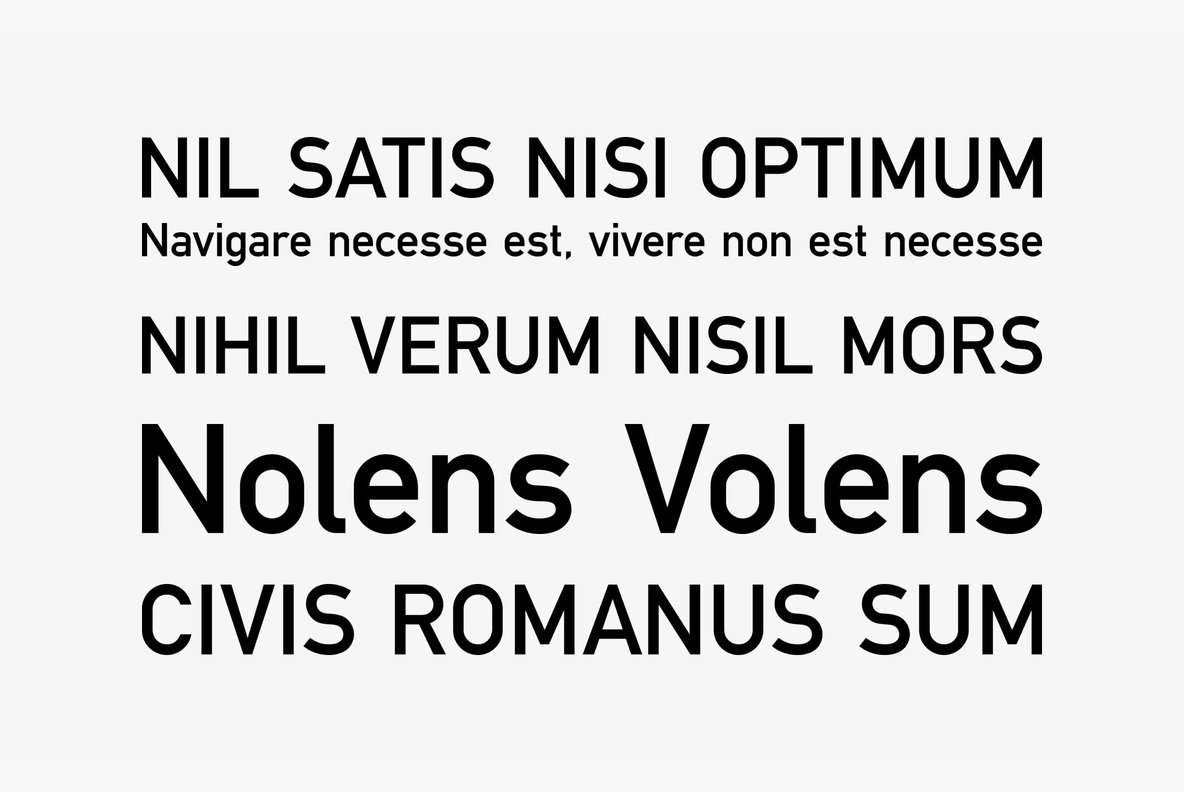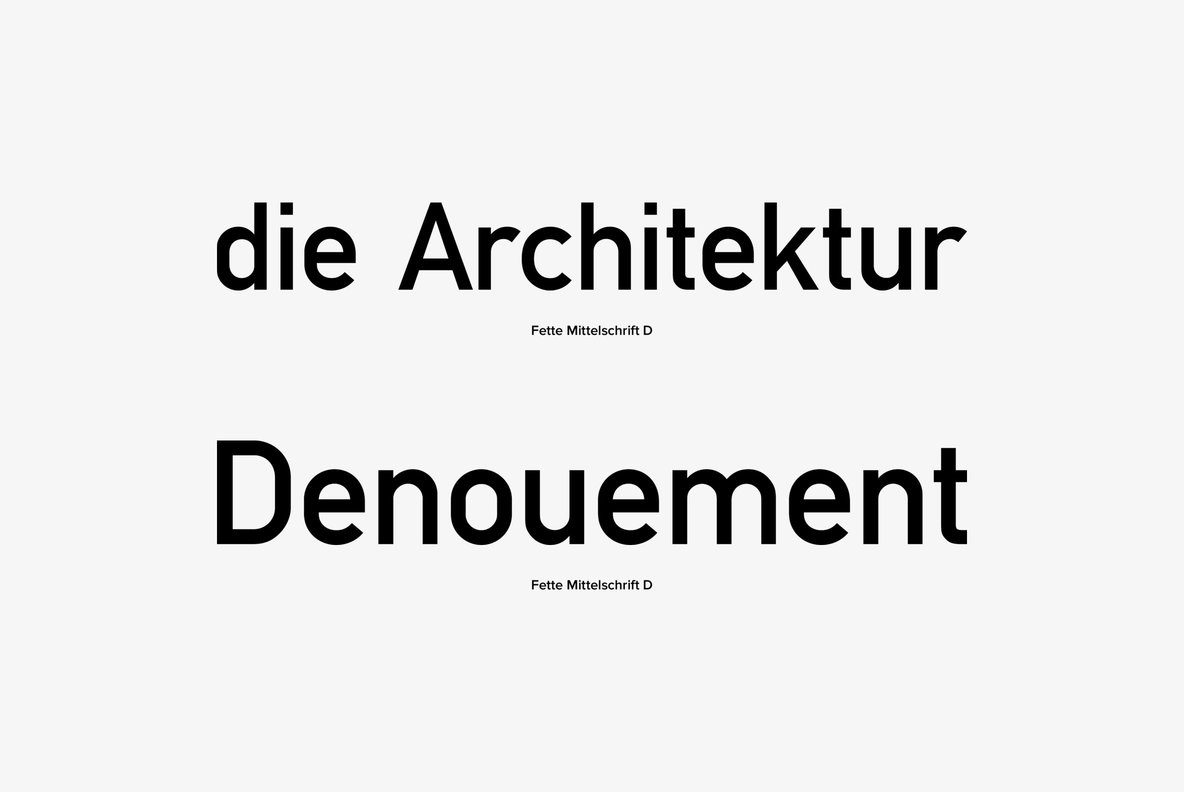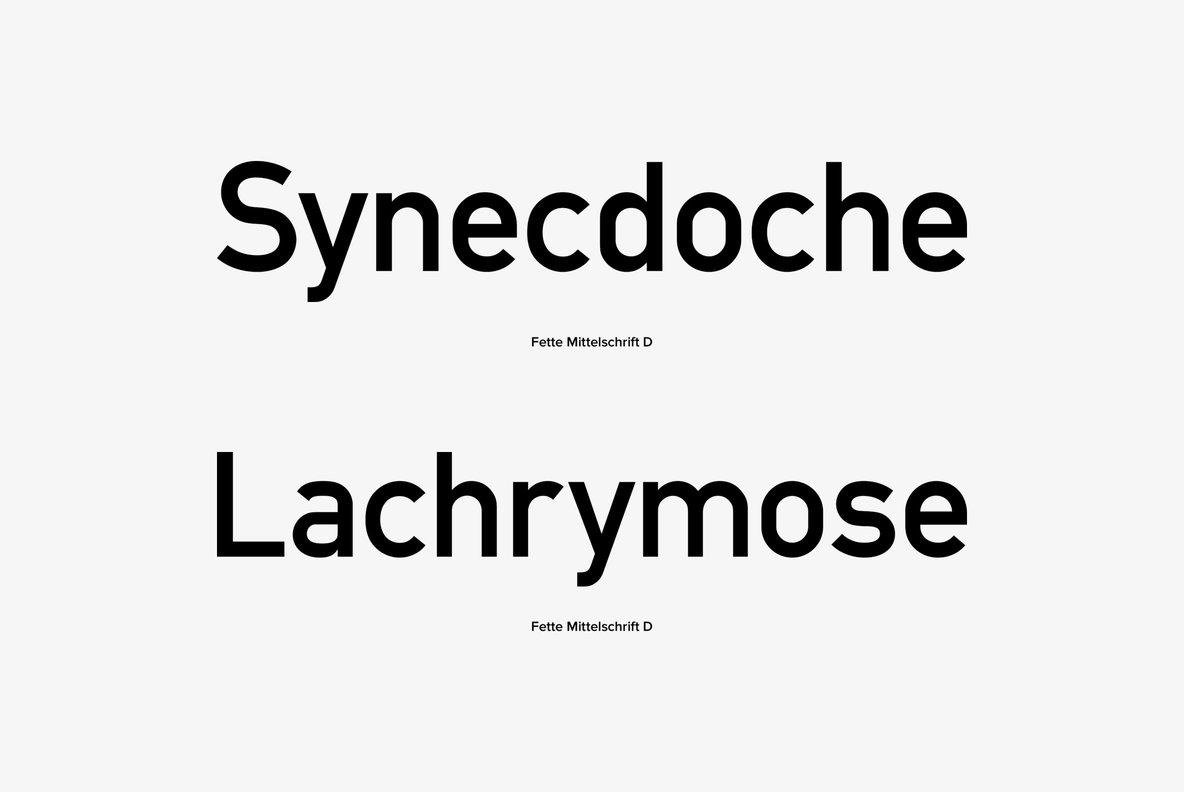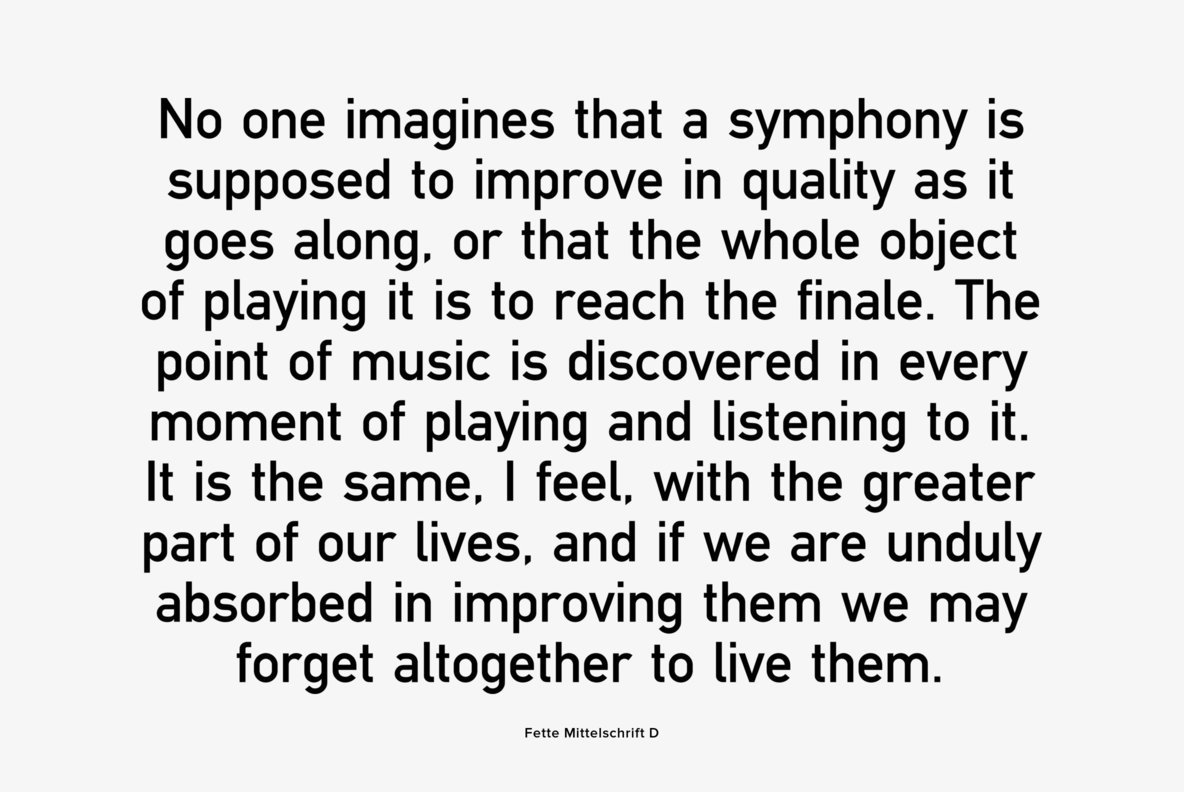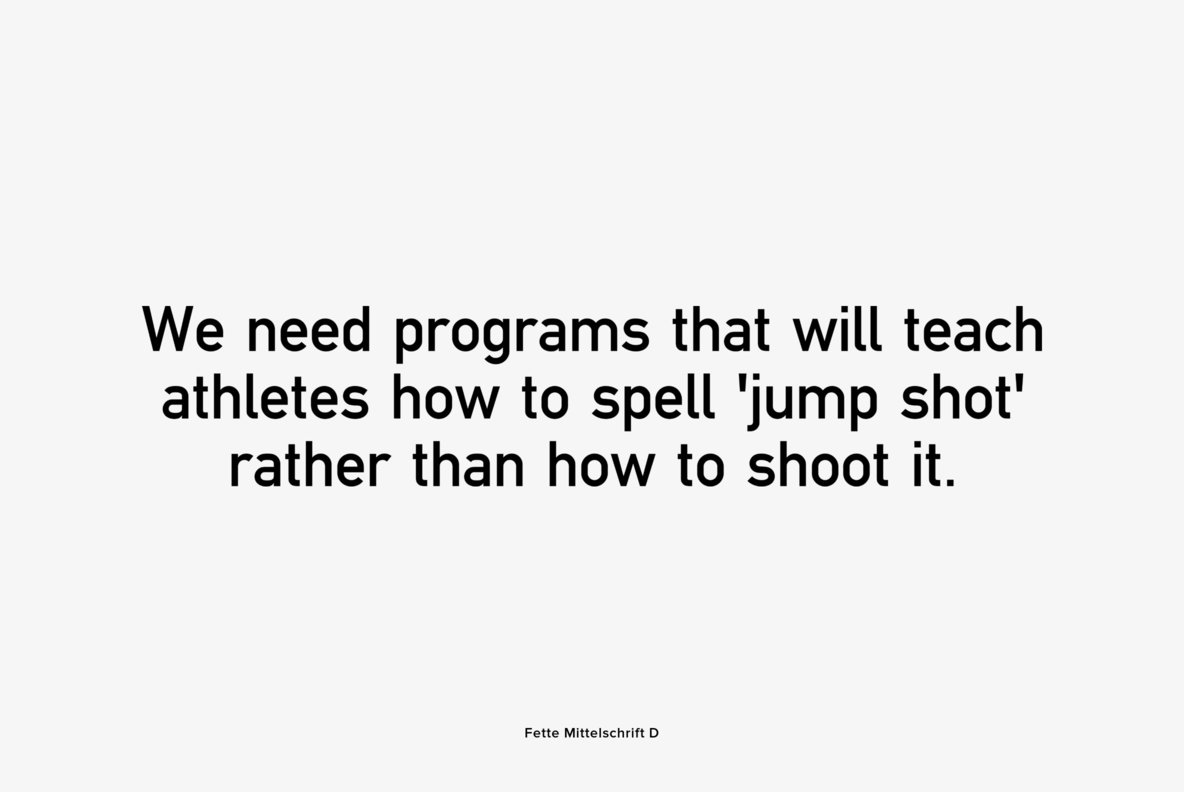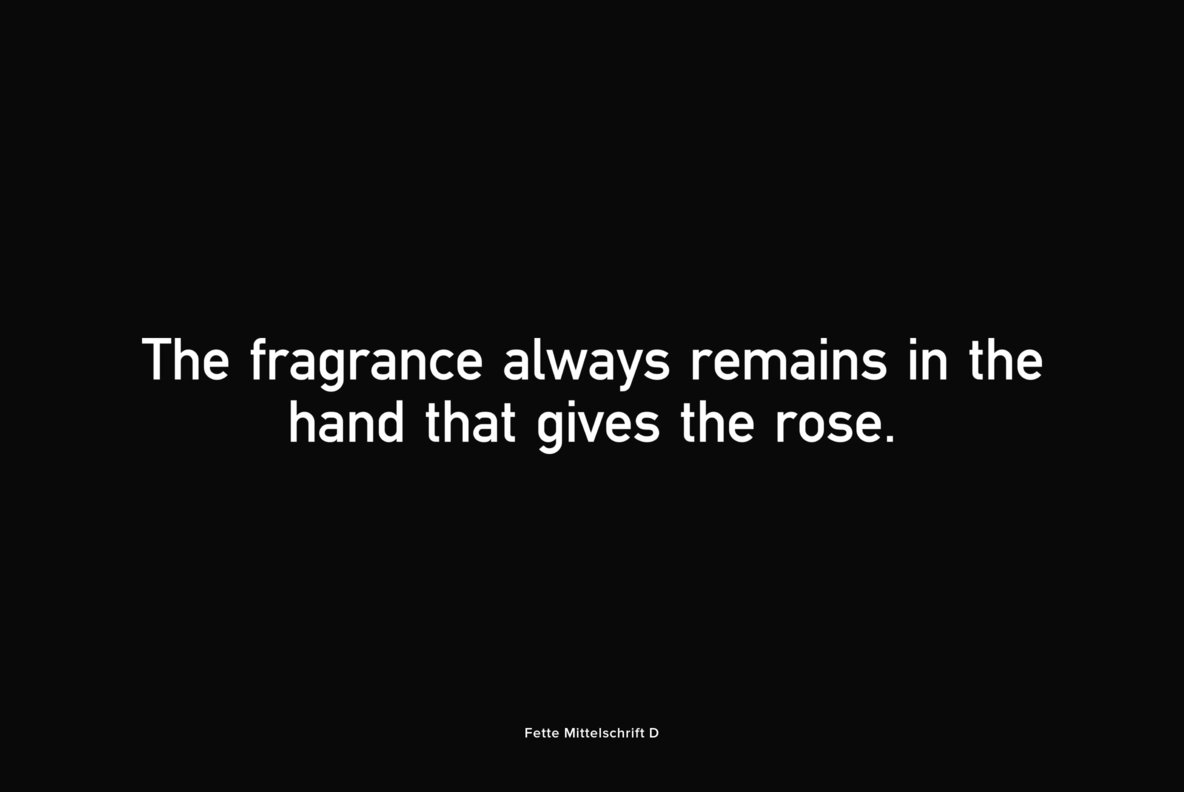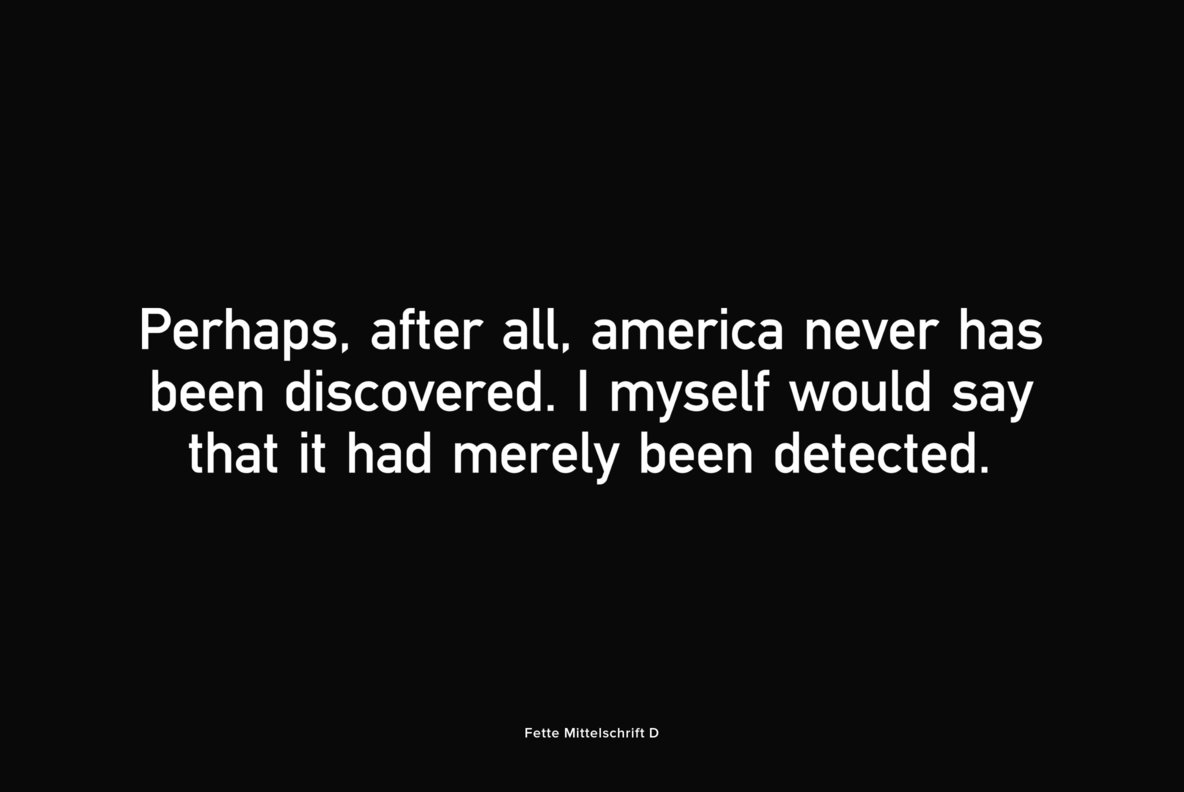
Fette Mittelschrift
Fette Mittelschrift is a san-serif font design, originally created for technical and traffic signage. Fette Mittelschrift was published and released by URW, contains language support for West, East, Turkish, Baltic, and Romanian.